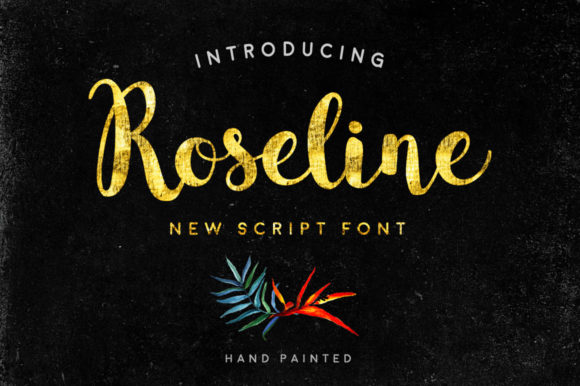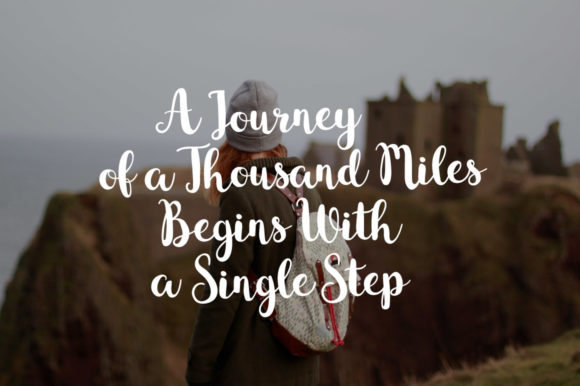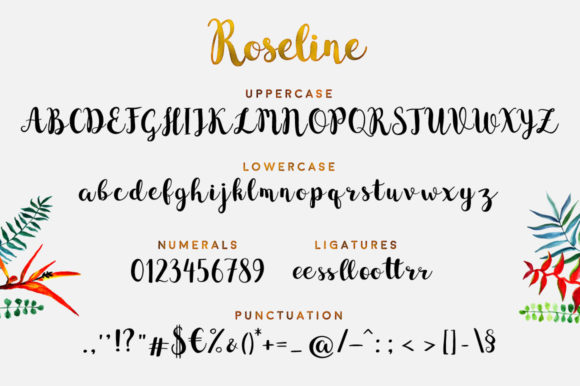
Roseline Font
About Roseline Font
Roseline is a chic and refined script font that exudes sophistication and elegance. With its stylish alternates and ligatures, this font is the perfect match for a wide range of projects. Whether you’re working on branding materials, packaging, invitations, social media graphics, or any other creative endeavor, Roseline adds a touch of class and style to your designs. Its flowing letterforms and intricate details create a visually appealing and captivating effect. Embrace this font confidently and let it elevate your projects with its sophistication and versatility, creating a stunning visual impact that will leave a lasting impression on your audience. Let the refined and elegant charm of Roseline enhance your designs and bring a sense of chic beauty to any project you undertake.